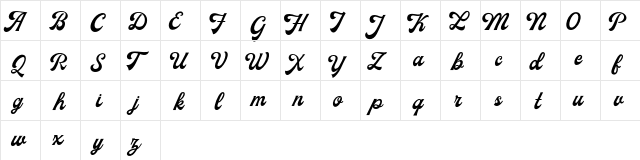
Milestone Free Version Script
| Style | Script |
| Foundry | Fortune Foundry |
| Designer | Ramandhani Nugraha |
Design Context for Milestone Free Version Typeface
Milestone Free Version brings a calligraphic fluidity to the page — its connecting strokes and expressive curves give it an unmistakably human quality.
Font Pairing: Combine Milestone Free Version with a simple geometric sans for maximum contrast — the tension between flowing curves and clean structure is a classic typographic pairing.
Pro Tip: Pair Milestone Free Version with a clean sans-serif for supporting text. The contrast between fluid script and geometric structure creates an elegant typographic hierarchy.